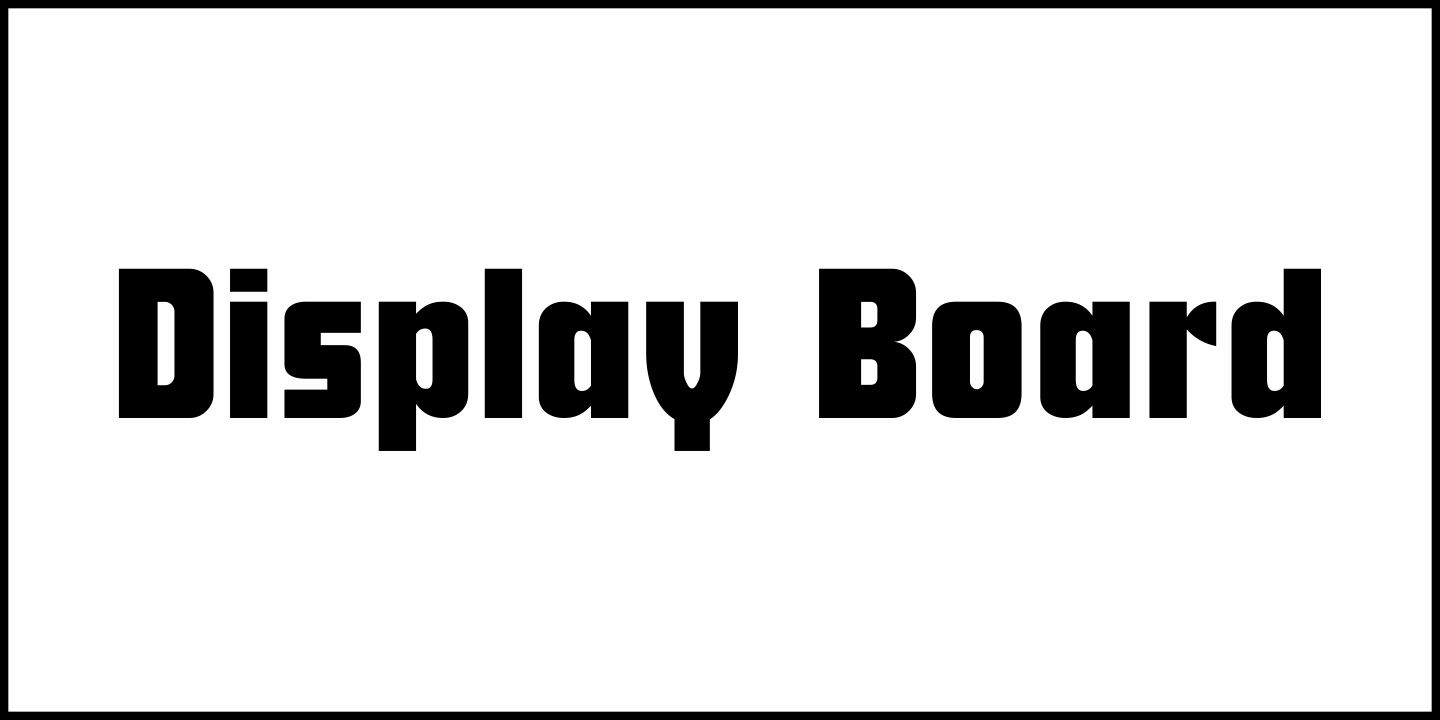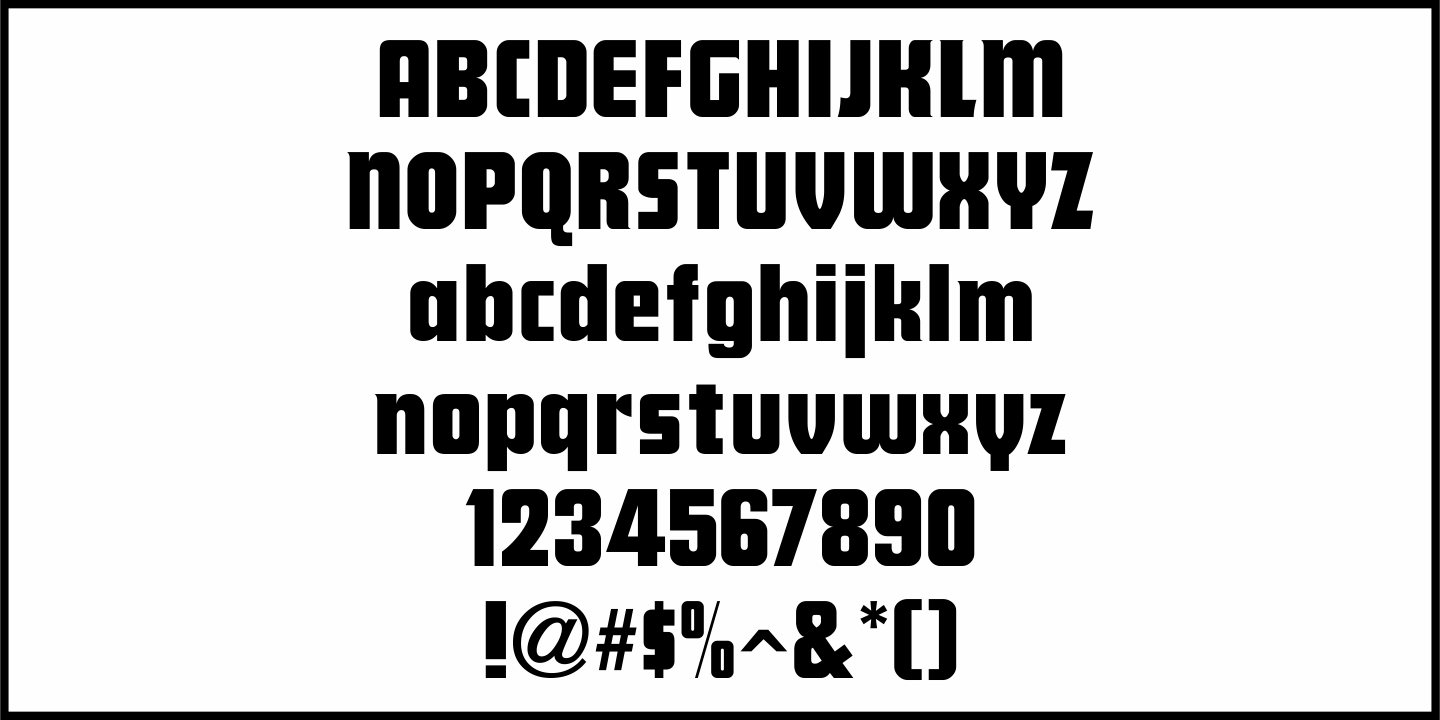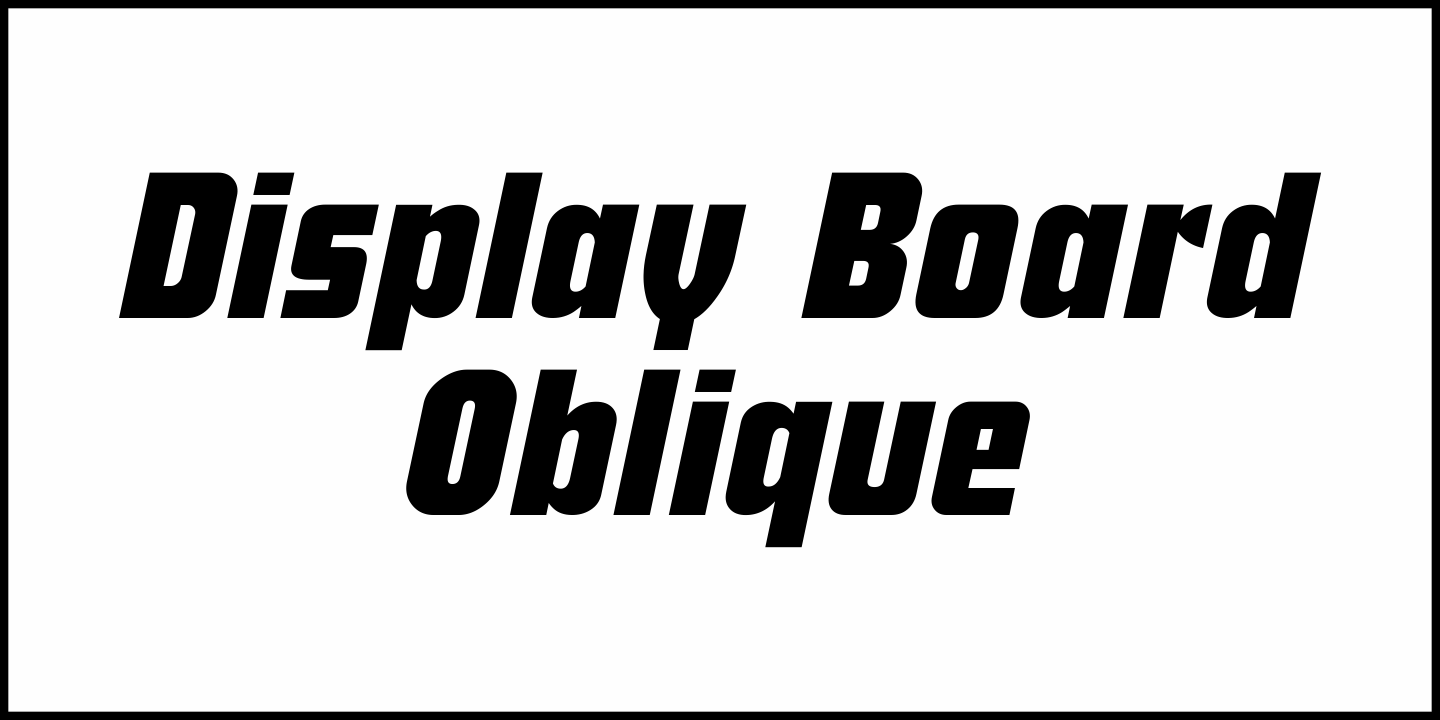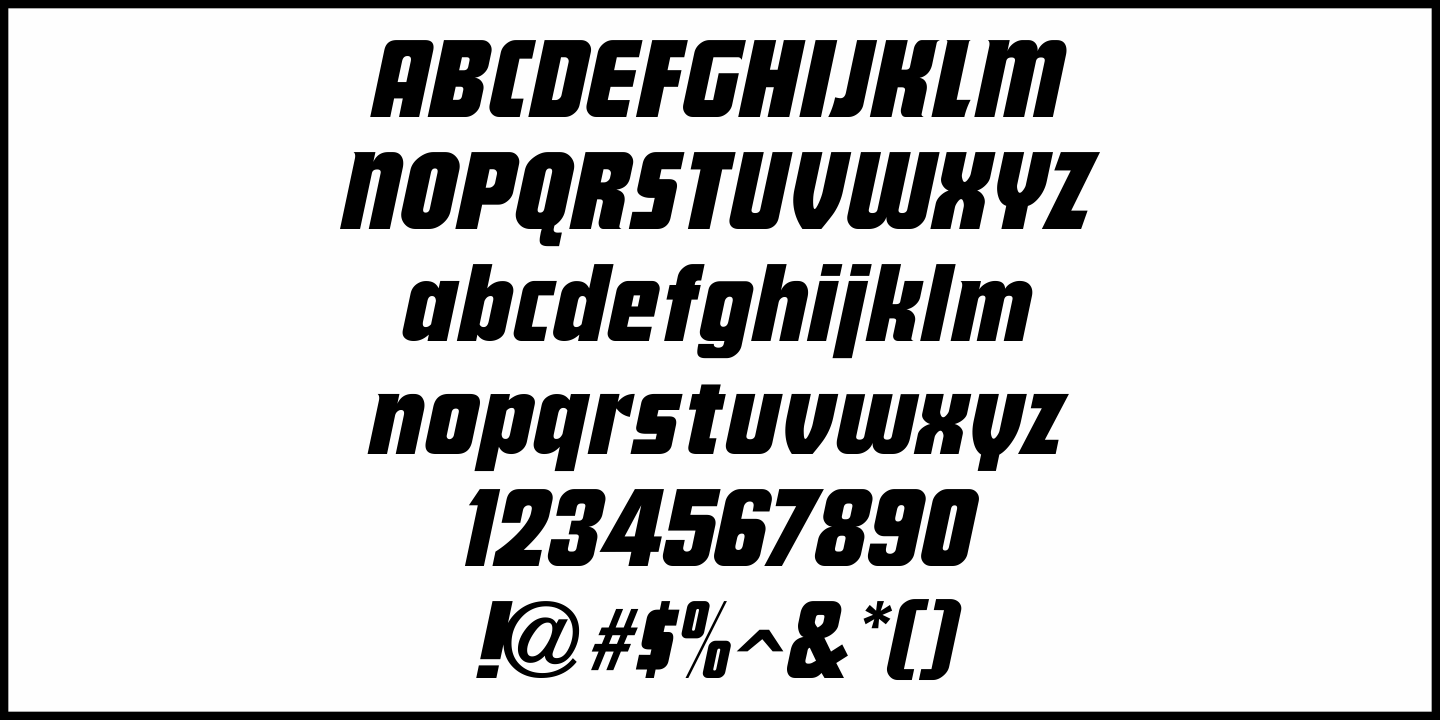
Display Board
Display Board JNL is based on Futura Display, which was designed in 1932 by Paul Renner as an extension of his original (1927) Futura family of typefaces.
According to Wikipedia, the font was developed as a typeface by the Bauer Type Foundry, in competition with Ludwig & Mayer's seminal Erbar typeface of 1926
Display Board JNL is available in both regular and oblique versions.